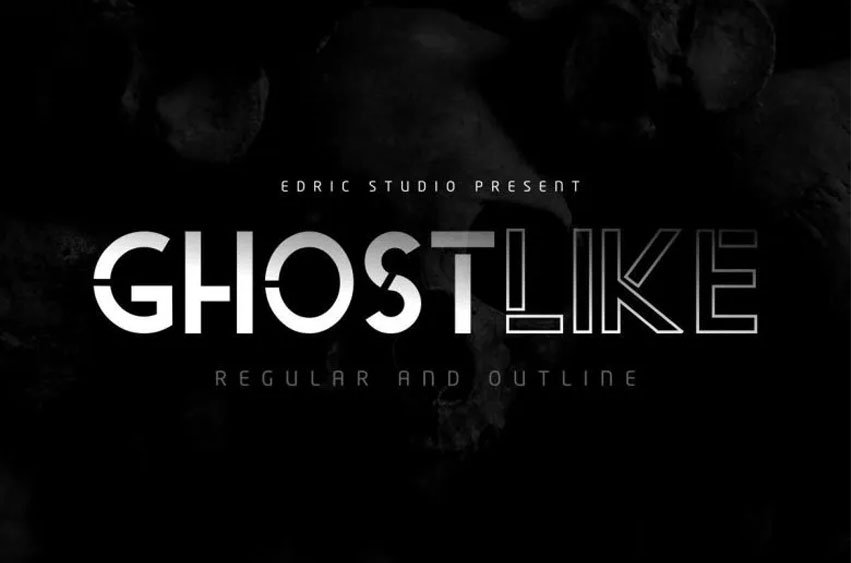
Ghostlike Font is an exclusive, furutistic sci-fi typeface, with a contemporary display style that is not adobe. It has a stunning characters set, flawlessly managed with the right spacing and kerning. The design of this font is include technology, future casual science fiction, business scientific, negative spaced and more.
Ghostlike can be used for a variety of projects such as branding, logos stationery, business cards and flyer, signage or brochure, and more. Most industries will compatible with this typeface. consultants and real estate, architectural law firm and startup companies, tech companies gaming, spaceship as well as aviation, hotels and more.